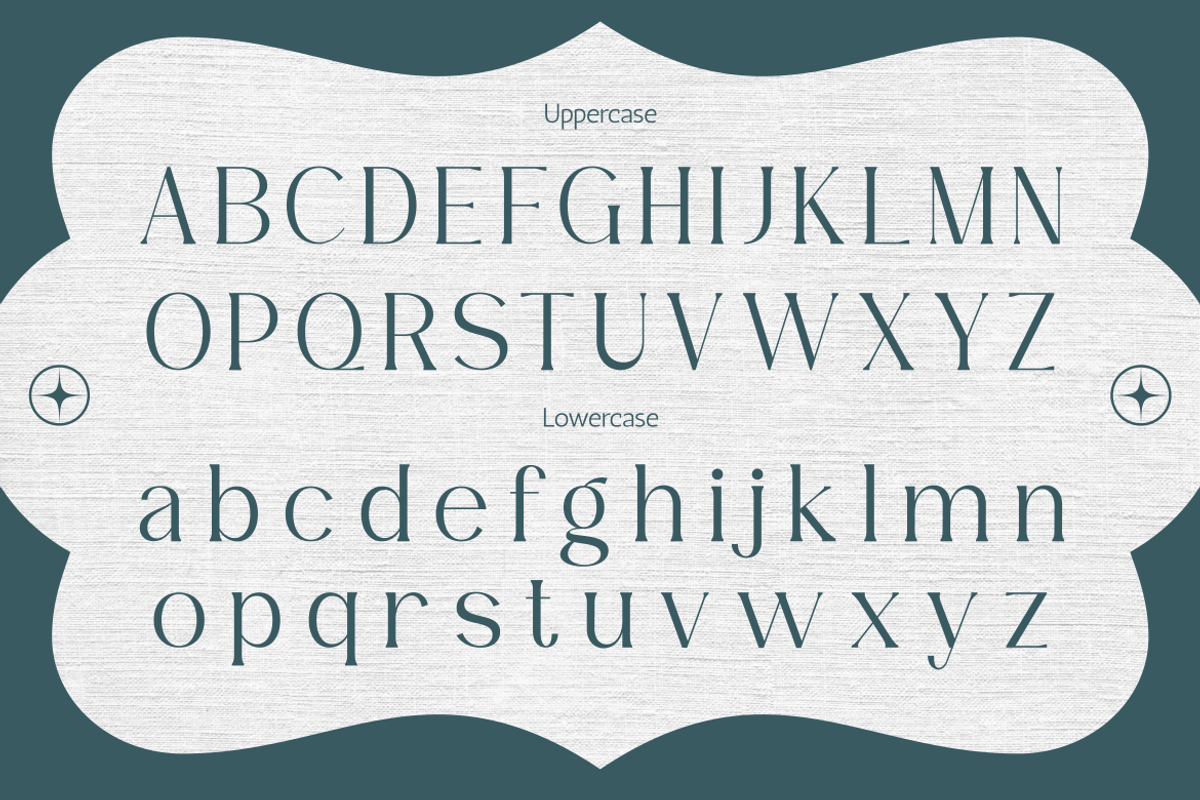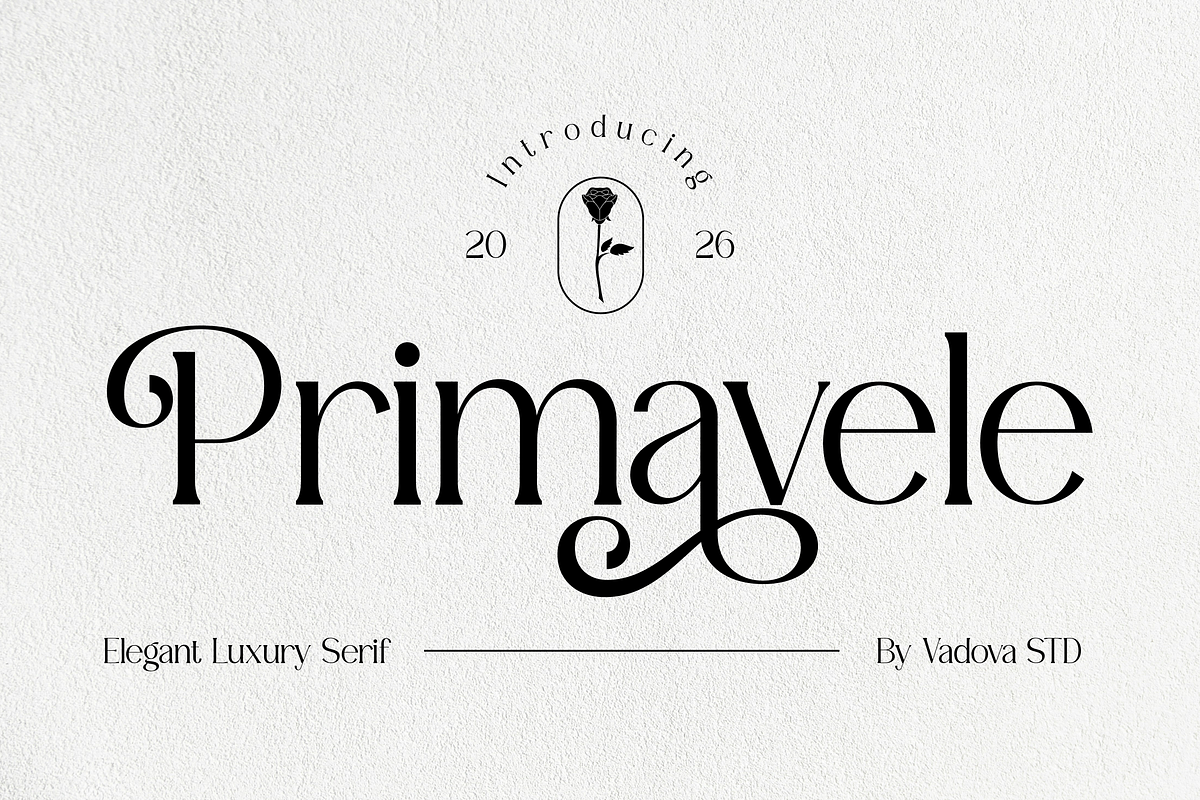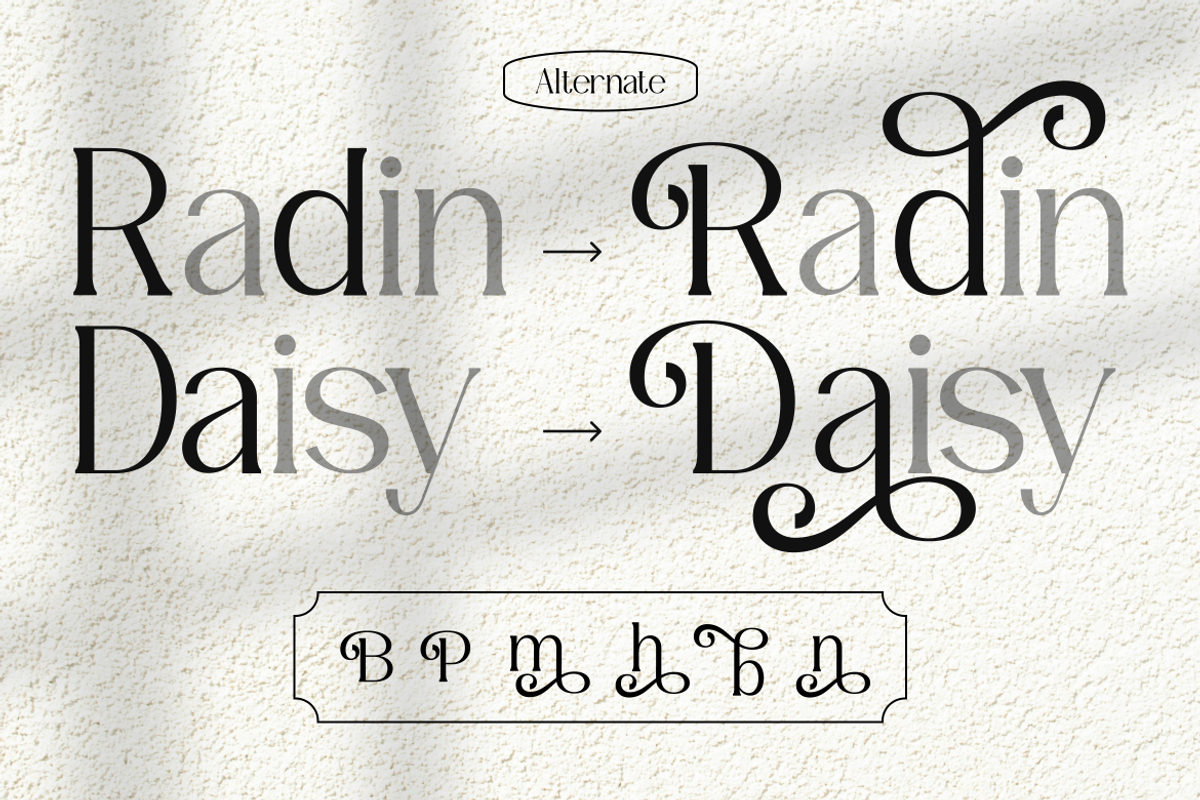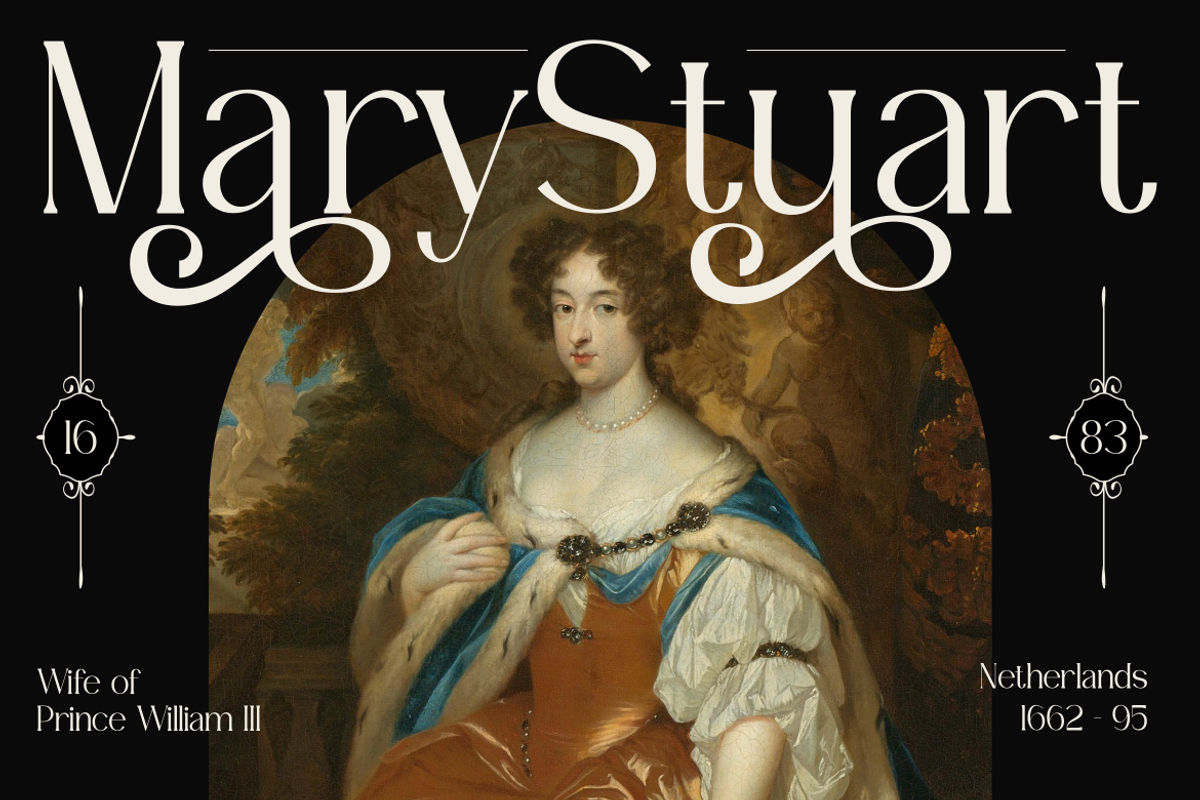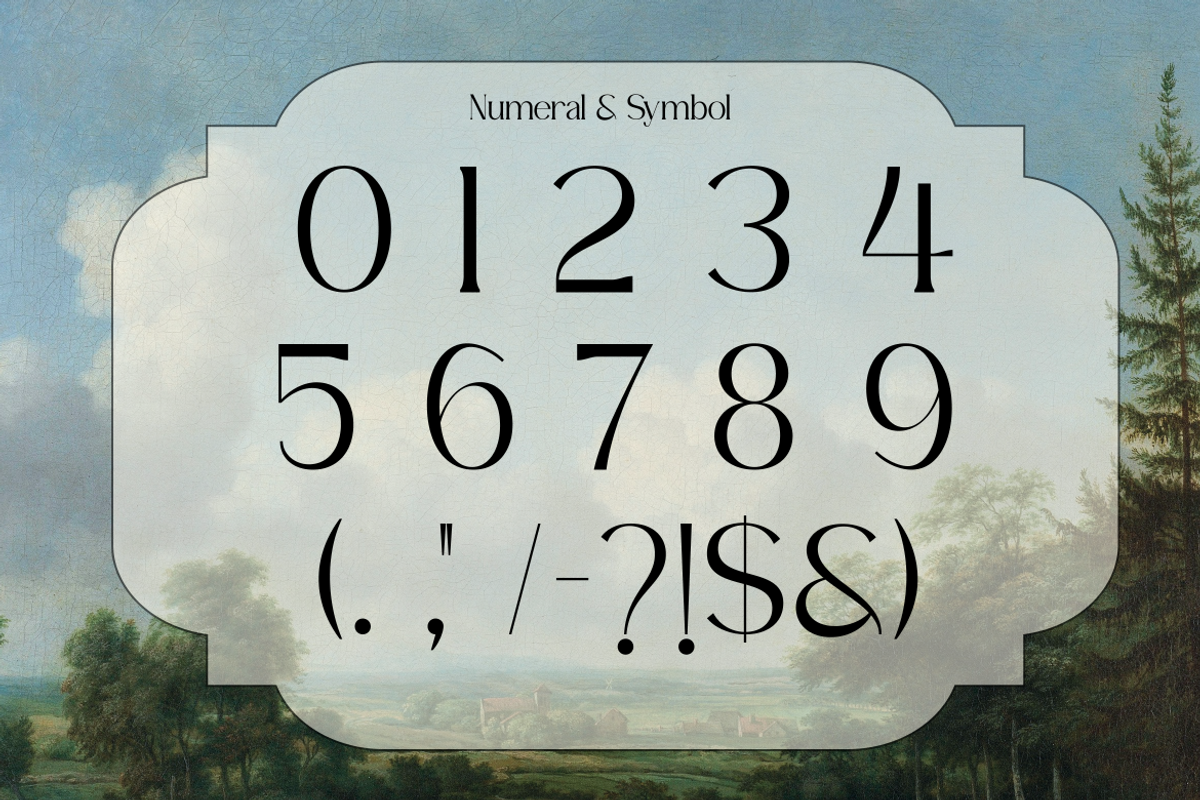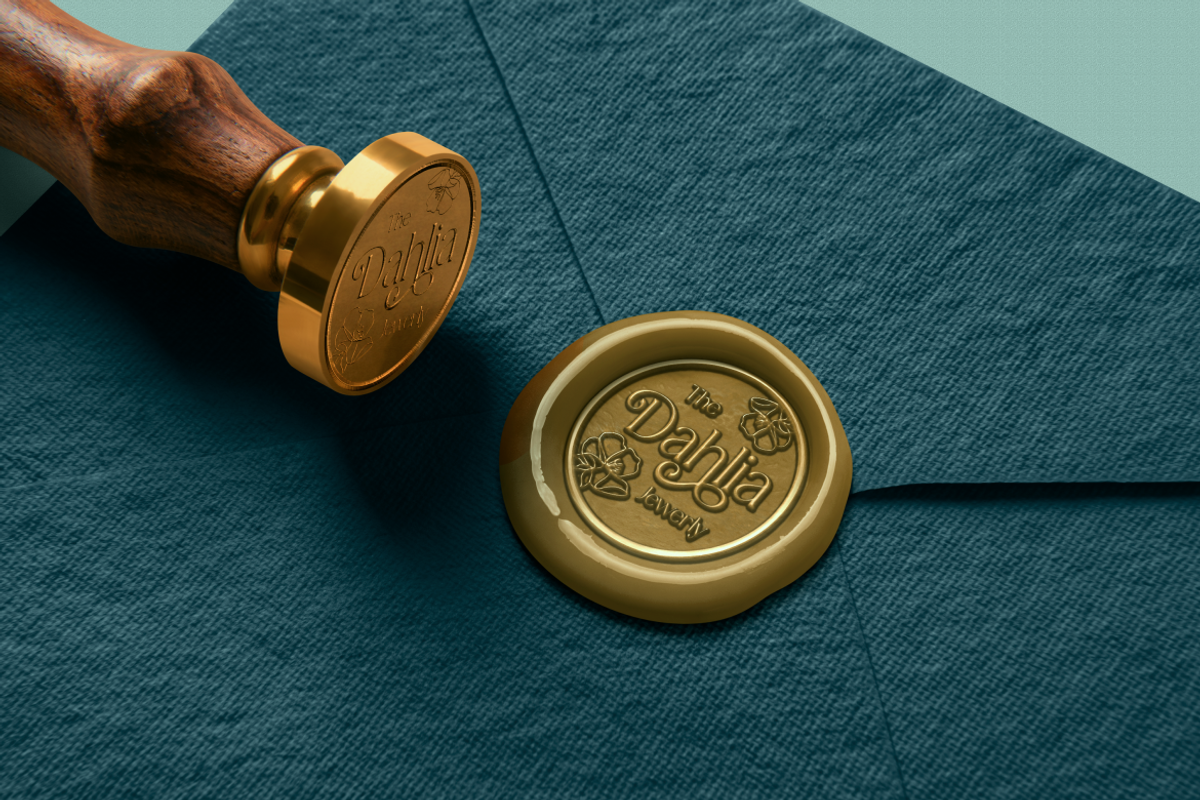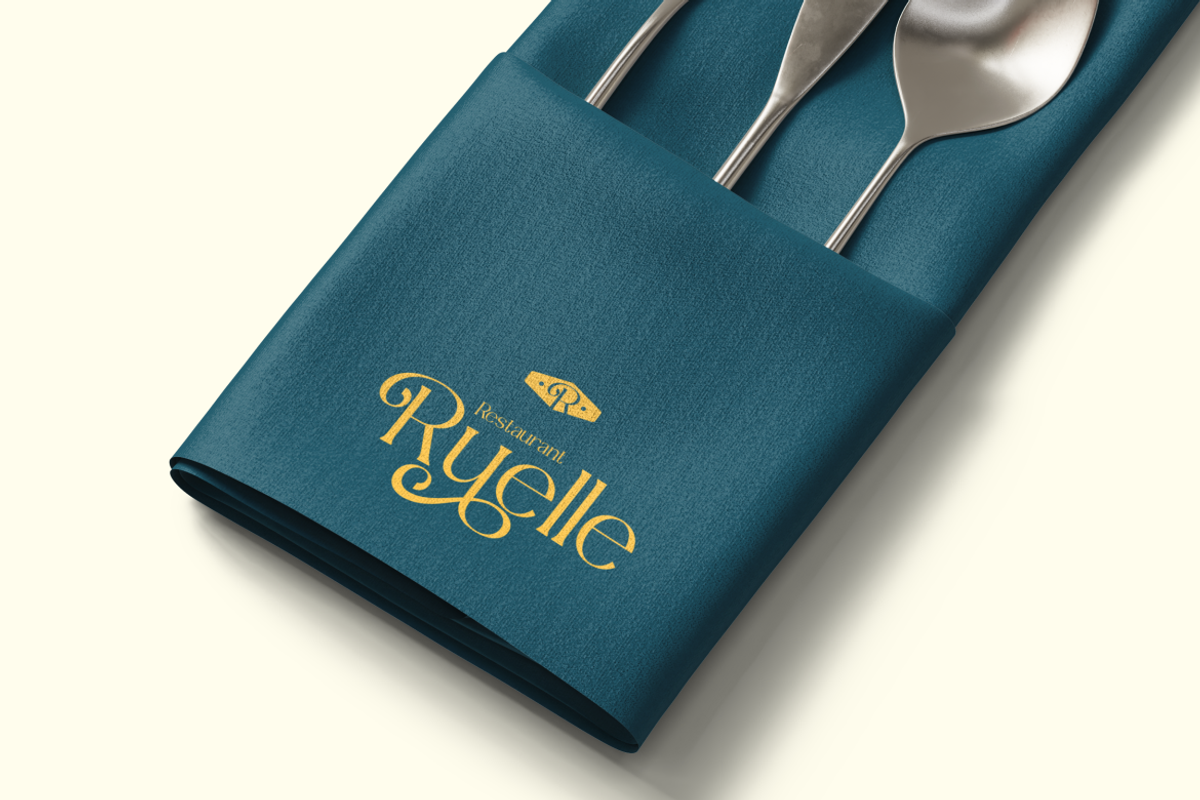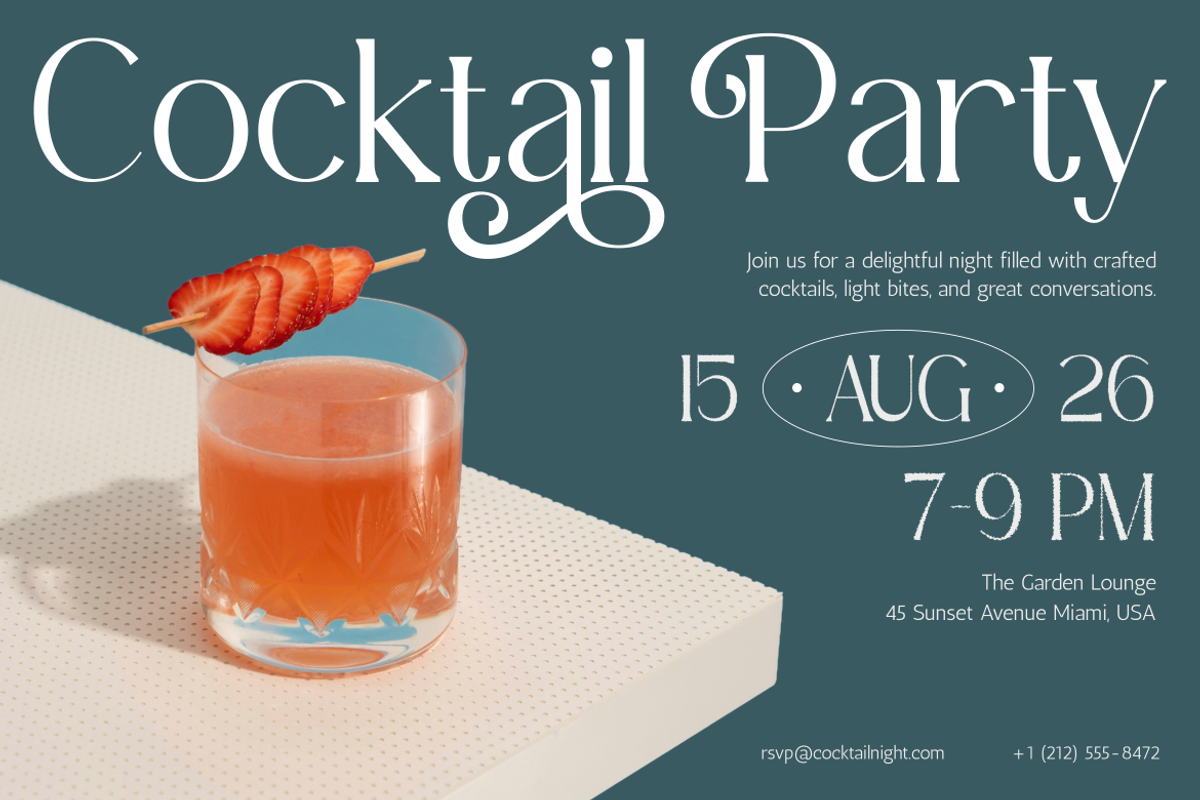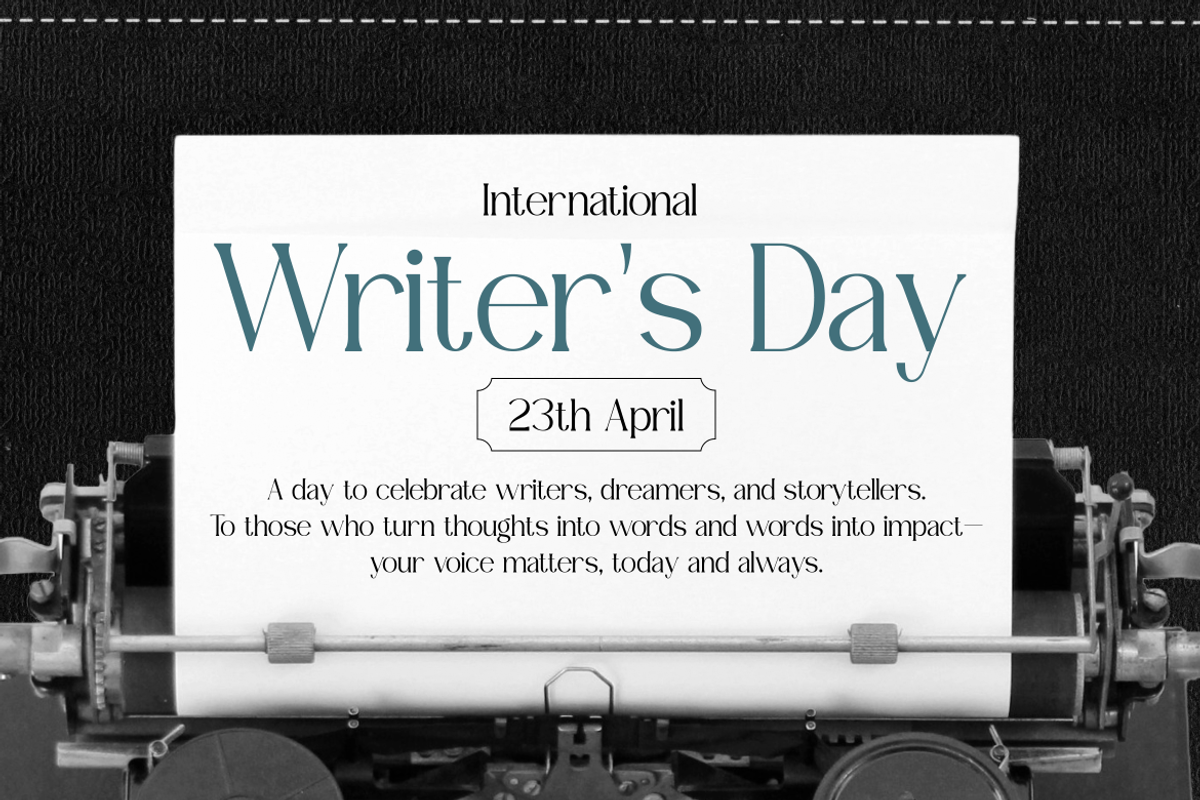
Primavele Elegant Luxury Serif Font
Primavele showcases a refined serif typeface with graceful curves and distinctive ornamental alternates that bring a sense of elegance and sophistication. The letterforms combine classic serif structure with subtle decorative swashes, creating a balanced contrast between readability and expressive detail. This package includes uppercase, lowercase, numerals, punctuation.
Relevance and Use Cases is perfect for luxury branding, editorial layouts, fashion campaigns, beauty product packaging, wedding invitations, boutique logos, high-end marketing materials, magazine headlines, social media visuals, and sophisticated digital or print design projects that require an elegant and refined typographic presence.
- Elegant serif construction with refined contrast between thick and thin strokes
- Decorative swash alternates that add a graceful and expressive character
- Soft curved terminals and subtle flared serifs for a sophisticated feel
- Balanced proportions with smooth rhythm for comfortable readability
- Carefully crafted spacing that works beautifully for both display and editorial use
- Luxury brand identity systems with an elegant and refined tone
- Editorial layouts such as fashion magazines and high-end publications
- Wedding invitations and premium event stationery designs
- Beauty, perfume, and boutique product packaging with a sophisticated look
- Social media visuals and branding materials with a graceful and stylish presence